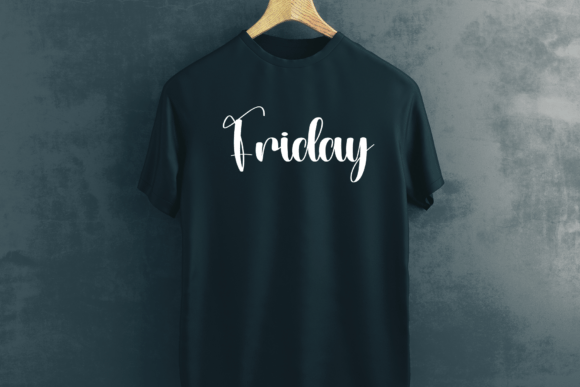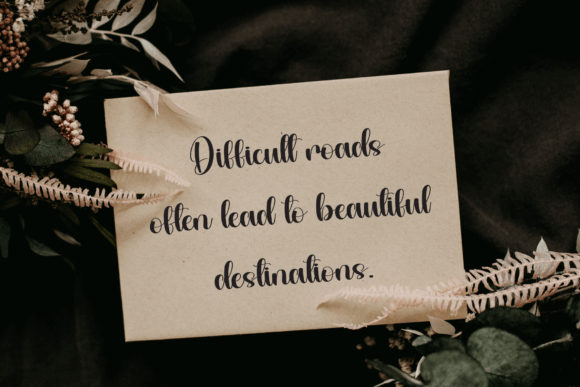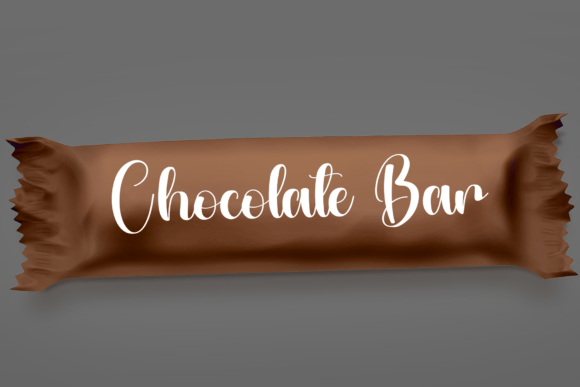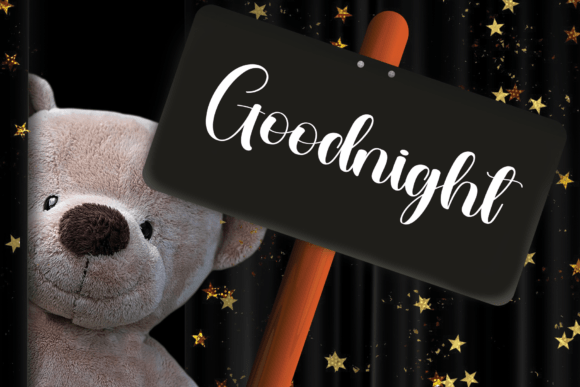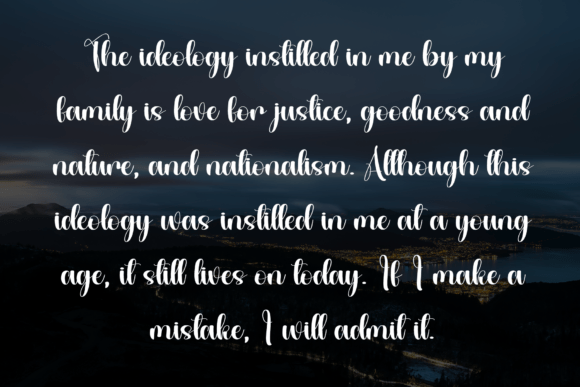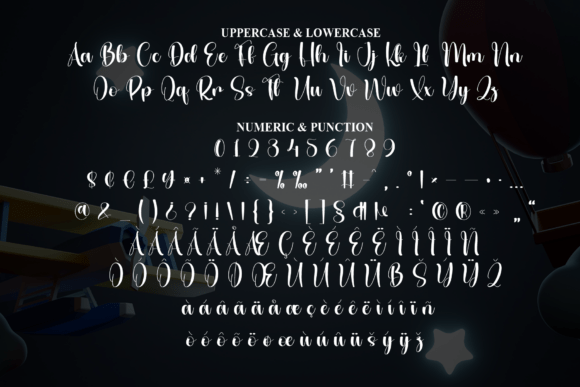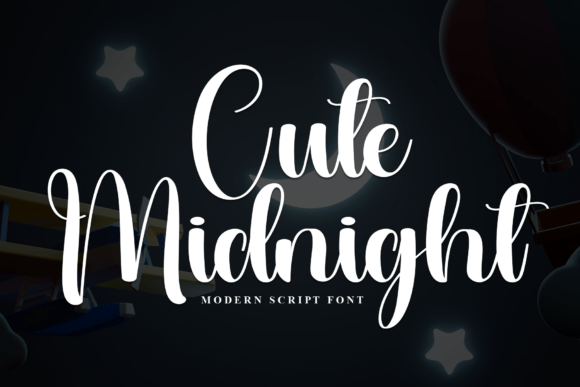
Cute Midnight Font: Elevate Your Designs with Elegance and Modern Charm
In the world of typography, a font can make all the difference in transforming a design from ordinary to extraordinary. If you’re a designer or crafter looking for a stylish script font that exudes elegance and modern charm, look no further than Cute Midnight. This beautiful font is designed to capture the essence of hand-drawn calligraphy with a contemporary edge, making it perfect for a wide range of design projects.
The Beauty of Cute Midnight Font
Cute Midnight is a stylish script font that features fluid strokes, graceful curves, and carefully balanced letterforms. Its unique design makes it stand out from other fonts, giving it a distinctive and sophisticated look that’s sure to impress. Whether you’re creating a logo, invitation, packaging, or social media graphic, Cute Midnight adds a touch of elegance and personality to any design.
One of the key features of Cute Midnight is its natural flow and refined details. The font’s fluid strokes and carefully crafted letterforms give it a sense of movement and fluidity, making it perfect for designs that require a touch of sophistication and style. The font’s modern charm also makes it ideal for designers and crafters who want to create designs that are both visually appealing and contemporary.
Uses of Cute Midnight Font
Cute Midnight is a versatile font that can be used for a wide range of design projects. Here are some of the ways you can use this beautiful font:
- Logos: Cute Midnight is perfect for creating elegant and sophisticated logos that make a lasting impression. Its unique design and fluid strokes make it ideal for brands that want to stand out from the competition.
- Invitations: Whether you’re creating a wedding invitation, birthday invitation, or any other type of invitation, Cute Midnight is the perfect font to use. Its elegant design and refined details make it perfect for formal and informal events.
- Packaging: Cute Midnight can also be used for packaging design, adding a touch of sophistication and style to any product. Its modern charm makes it perfect for brands that want to create a contemporary and eye-catching design.
- Social Media Graphics: Cute Midnight is also ideal for social media graphics, including Facebook posts, Instagram stories, and Twitter headers. Its elegant design and refined details make it perfect for creating visually appealing graphics that grab attention.
Why Choose Cute Midnight Font?
There are many reasons why you should choose Cute Midnight font for your design projects. Here are some of the benefits of using this beautiful font:
- Elegance: Cute Midnight exudes elegance and sophistication, making it perfect for designs that require a touch of refinement and style.
- Versatility: Cute Midnight is a versatile font that can be used for a wide range of design projects, from logos and invitations to packaging and social media graphics.
- Modern Charm: The font’s modern charm makes it perfect for designers and crafters who want to create designs that are both visually appealing and contemporary.
- Easy to Read: Cute Midnight is easy to read, making it perfect for designs that require a clear and concise message.
Tips for Using Cute Midnight Font
Here are some tips for using Cute Midnight font in your design projects:
- Pair it with a Sans-Serif Font: Pairing Cute Midnight with a sans-serif font can create a beautiful contrast that adds visual interest to your design.
- Use it for Headings: Cute Midnight is perfect for headings and titles, making it ideal for designs that require a touch of elegance and sophistication.
- Experiment with Colors: Cute Midnight looks great in a variety of colors, so don’t be afraid to experiment and find the perfect color for your design.
In conclusion, Cute Midnight font is a stylish script font that exudes elegance and modern charm. Its fluid strokes, graceful curves, and carefully balanced letterforms make it perfect for a wide range of design projects, from logos and invitations to packaging and social media graphics. With its natural flow and refined details, Cute Midnight delivers both visual appeal and versatility, making it a great addition to any designer’s or crafter’s font collection.